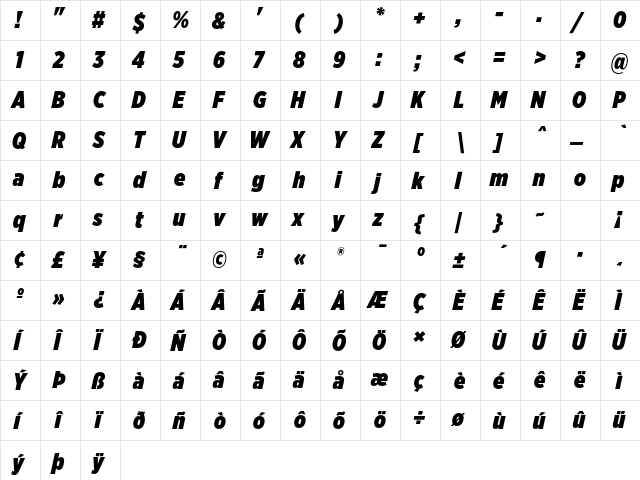
Gotham XNarrow Ultra Italic Font Preview
| Foundry | Hoefler & Frere-Jones |
| Designer | Hoefler & Frere-Jones |
Design Context for Gotham XNarrow Typeface
Gotham XNarrow takes a measured approach to typography — its balanced proportions and neutral character make it a reliable workhorse for both digital and print work. The slanted form adds forward momentum and visual energy. The condensed width makes it efficient for tight spaces without sacrificing legibility.
Pro Tip: Try Gotham XNarrow for annotation and caption copy alongside an upright companion — the contrast in angle creates a dynamic but ordered typographic system.